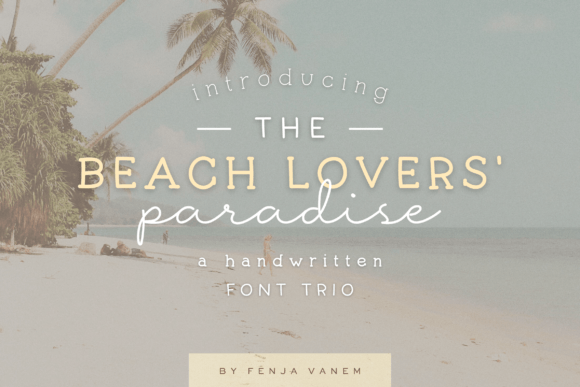
Find Your Perfect Shore with the Beach Lovers Paradise Font
Imagine strolling along a sun-kissed beach, the sound of waves gently crashing against the shore. The salty air fills your lungs as you breathe in the tranquility of the ocean. It’s moments like these that spark creativity and inspire us to create something truly special. For designers, there’s nothing quite like capturing the essence of the beach in their work.
That’s where the Beach Lovers Paradise Font comes in – a trio of versatile fonts designed to bring a touch of seaside elegance to both digital and print projects. With its simplicity and clarity, this font trio is perfect for text-heavy designs and user interfaces, making it an invaluable asset for any designer looking to add a coastal vibe to their work.
Beach Lovers Paradise Font Key Features
- Unique Characteristics: Beach Lovers Paradise Font features a unique, hand-drawn design that evokes the feeling of a tropical paradise. The font includes a range of characters, including letters, numbers, and punctuation marks, as well as a variety of special characters and symbols.
- Font Style: The font is available in a single style, with a range of weights and sizes to suit different design needs. The font is perfect for use in headings, titles, and other display text.
Beach Lovers Paradise Font Review
As a designer, I was excited to dive into the Beach Lovers Paradise Font and see what it had to offer. On the surface, it looks like a charming, seaside-inspired font that could add a touch of whimsy to any project. ✨ Here are some things that really stood out to me:
- The font’s unique, handwritten feel is perfect for capturing a carefree, summery vibe.
- The character set is extensive, with a wide range of punctuation and symbols to support a variety of uses.
- The font’s scalability is impressive, with clear, legible text even at small font sizes.
However, I did encounter a few limitations that prevented me from giving it a glowing review. ⚠️ These include:
- A lack of bold or italic variants, which can limit the font’s versatility.
- The font’s unique feel can also make it difficult to pair with other fonts or design elements.
Overall, I would say that the Beach Lovers Paradise Font is a solid choice for designers looking to add a touch of beachy charm to their projects. While it may not be the most versatile or widely applicable font, it’s definitely worth considering for the right project.
For best results, use Beach Lovers Paradise Font in combination with other playful fonts and graphics. Experiment with different sizes, colors, and styles to create a unique look.